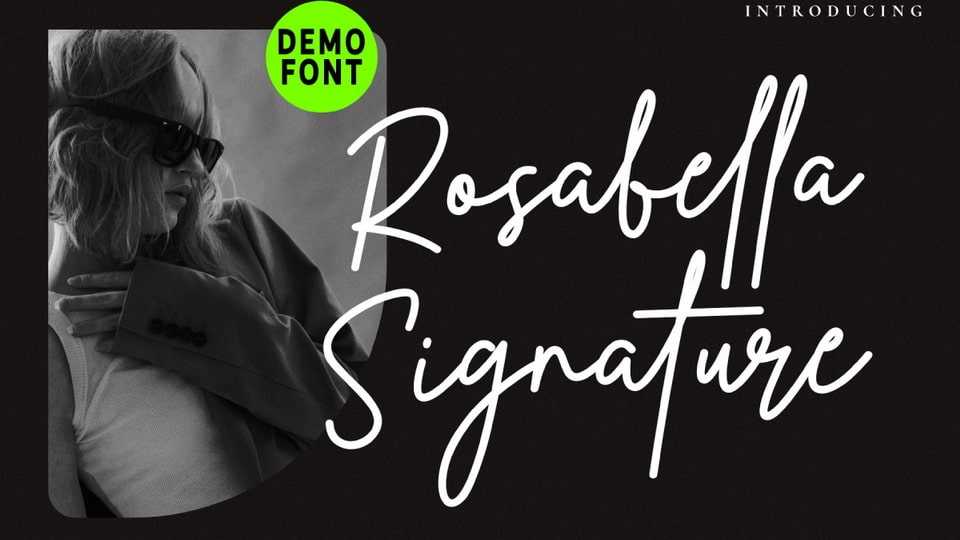
Download Rosabella Signature font, a simple and elegant typeface that can be interpreted as professional. We try to make this font smooth, elegant, classy, easy to read, and attractive.